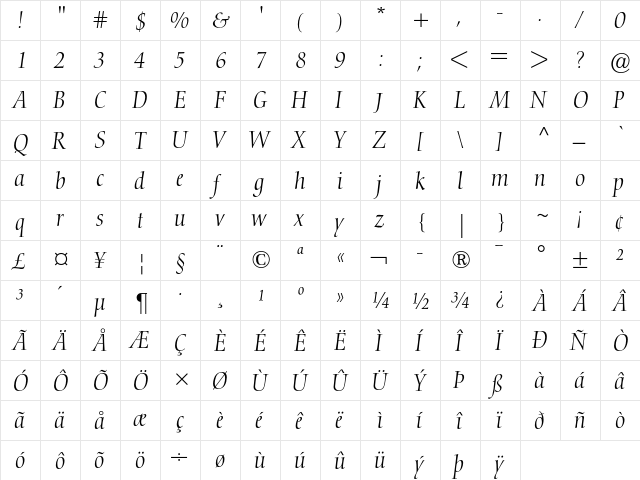
Nofret Light Italic
Design Context for Nofret Typeface
Nofret offers clean, dependable letterforms without strong stylistic allegiance, making it a practical choice for designers who need flexibility. The slanted form adds forward momentum and visual energy. Its slender proportions lend an understated elegance to any composition.
Pro Tip: Try Nofret for annotation and caption copy alongside an upright companion — the contrast in angle creates a dynamic but ordered typographic system.